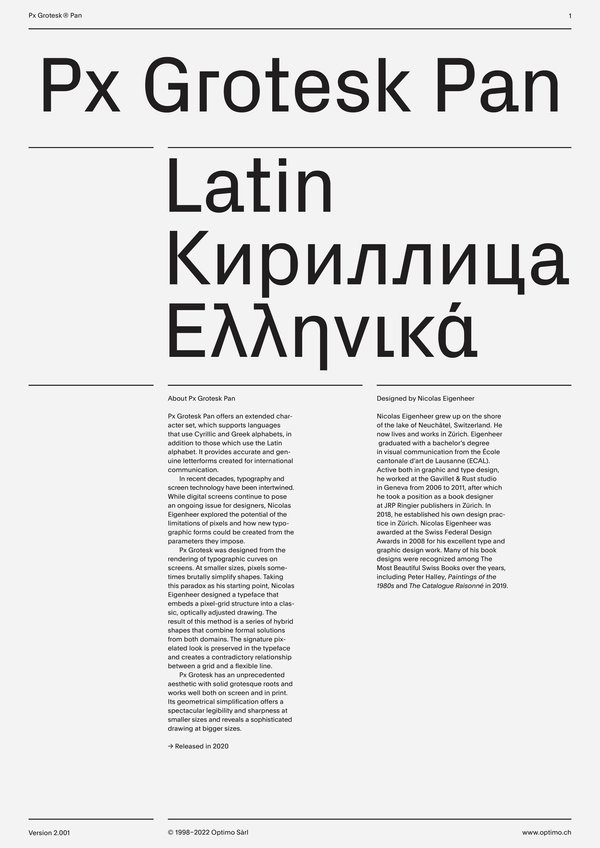
Px Grotesk Pan
Case Sensitive Forms
All Caps [cpsp]
Case Sensitive Forms [case]
This function formats the text in uppercase and adjusts spacing between all capital letters. It also applies the ‘Case Sensitive Forms’ feature which replaces certain characters with alternates that are better suited for all capital text, especially related to punctuation.
Contextual Alternates
Contextual Alternates [calt]
This feature adapts the position of a glyph after its surrounding context. For instance, a dash placed between two uppercase letters or numbers will be replaced by an uppercase version of the dash, slightly higher. This feature is usually active by default in Adobe applications.
Bulgarian alternates
Stylistic Set 3 [ss03]
This feature activates alternative letters used in Bulgarian language.
Macedonian and Serbian alternates
Stylistic Set 4 [ss04]
This feature activates the alternative “be” letter used in Serbian language.
Serbian alternates [italics only]
Stylistic Set 5 [ss05]
This feature activates alternative italic letters used in Serbian language.
Alternate at symbol
Stylistics Set [ss01]
This feature replaces glyph(s) with stylistic alternate(s).
Tabular Lining Figures
Tabular Lining Figures [tnum–lnum]
Based on the proportions of the capitals, lining figures have an invariable height. With the combination of the tabular spacing format, the width of each numeral is uniformized. This feature is useful when numerals need to all lined up. It facilitates the reading of numbers set within columns or tables. As some applications don’t have access to this feature, proportional figures are set as the default choice.
Alternate arrows
Stylistics Set 2 [ss02]
This feature replaces glyph(s) with stylistic alternate(s).
Fractions
With this feature, any numbers separated by a slash will automatically turn into a fraction. To fit in fraction configuration, numerals have been designed smaller and their weights have been adjusted to suit the typeface.
Lowercase math symbols
Stylistic Set 6 [ss06]
This feature activates alternate lowercase positioning of mathematical symbols.
Ornaments and symbols
Stylistic Set 7 [ss07]
This feature replaces glyph(s) with stylistic alternate(s).
Slashed Zero
Slashed Zero [zero]
Originally created to avoid the confusion between the ‘0’ and the ‘O’, this feature substitutes all zeros in a selected text by a slashed form of the zero.
Multiply sign
Stylistic Set 20 [ss20]
This feature substitutes the letter “x” into the multiplication sign.
Numerators [numr]
This feature substitutes glyphs with their matching smaller alternates. The numerators are the same glyphs that are used to create fractions, their vertical position remains within the capital letters height. These glyphs are reduced in size and designed slightly heavier to keep them consistent with the rest of the font.
This feature substitutes glyphs with their matching smaller alternates and low position glyphs. The denominators are the same glyphs that are used to create fractions, their vertical position remains within the base line. These glyphs are reduced in size and designed slightly heavier to keep them consistent with the rest of the font.
Superscript/Superiors
This feature substitutes glyphs with their matching smaller alternates which are set slightly above the height of the capital letters. These glyphs are reduced in size and designed slightly heavier to keep them consistent with the rest of the font.
Subscript/Inferiors
Subscript / Inferiors [subs]
This feature substitutes glyphs with their matching smaller alternates which are set slightly below the baseline. These glyphs are reduced in size and designed slightly heavier to keep them consistent with the rest of the font.
Px Grotesk has an unprecedented aesthetic with solid grotesque roots and works well both on screen and in print. Its geometrical simplification offers a
spectacular legibility and sharpness at smaller sizes and reveals a sophisticated drawing at bigger sizes.